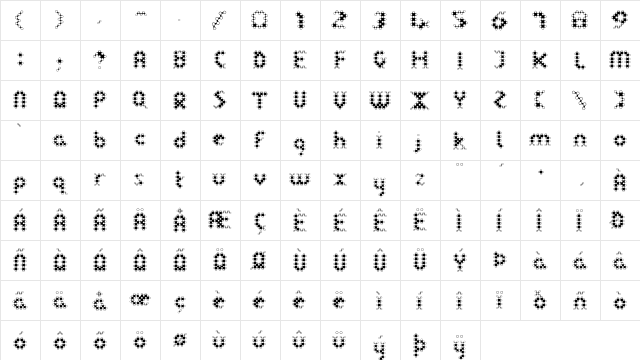
LinotypeDot Regular
Design Context for LinotypeDot Typeface
LinotypeDot is rooted in pixel-grid construction, making it a natural fit for game UI, retro computing aesthetics, and digital nostalgia projects.
A natural choice for retro game titles, chiptune music branding, 8-bit UI, and digital nostalgia projects.